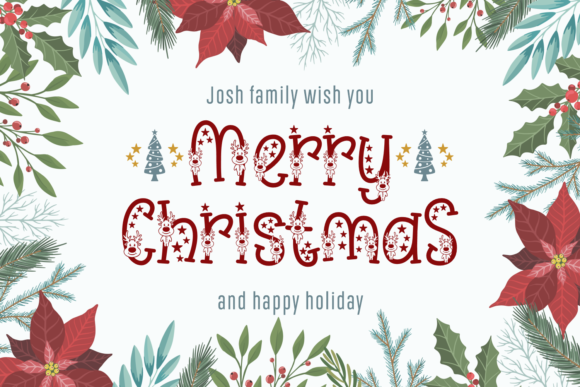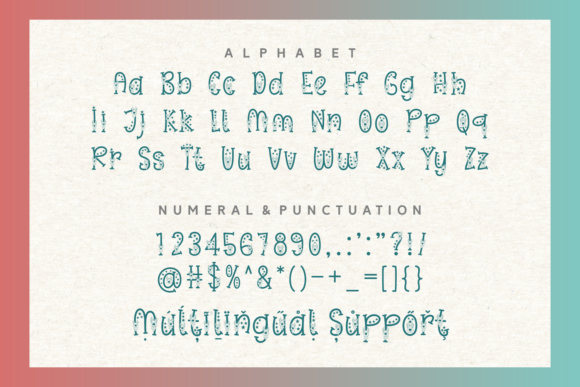
Introduction to Hello Noels Font
Have you ever found yourself brainstorming ideas for a creative project, only to be stuck on the perfect font to bring your vision to life? It’s a feeling many designers can relate to. But what if you stumbled upon a font that effortlessly captures the essence of festive cheer, making your design shine like a well-placed snowflake on a winter wonderland scene?
Meet the Hello Noels Font, a delightful decorative font that’s sure to become your go-to resource for any project that requires a touch of whimsy. Whether you’re working on a digital design, crafting a handmade card, or creating a presentation that screams joy, this high-quality font has the potential to elevate your work to new heights.
Key Features of Hello Noels Font
- Unique characteristics: a modern and elegant design, suitable for various applications, including logos, headings, and body text.
Honest Review: Hello Noels Font
As a designer, I’m always on the lookout for high-quality design resources to elevate my creative projects. I recently stumbled upon the Hello Noels Font, and I’m excited to share my thoughts on it.
What works well about the Hello Noels Font is its versatility and charm. It’s a beautiful, hand-drawn font that’s perfect for adding a personal touch to your designs. I particularly love the whimsical feel it brings to my projects.
- ✨ Beautiful, hand-drawn design that’s perfect for creative projects
- ✨ Versatile font that works well for both digital and print designs
One limitation I’ve noticed is that the font can be a bit difficult to read in certain font sizes. I’ve found that it works best when used at larger sizes, but it can be challenging to read at smaller sizes.
Overall, I’m really impressed with the Hello Noels Font. It’s a great addition to my design resource library, and I’m excited to see how it will help elevate my creative projects.
Hello Noels Font
Introduction to Hello Noels Font
Tips for Getting the Most Out of Hello Noels Font
To get the most out of Hello Noels Font, be sure to use it on a transparent background to achieve a seamless design. You can also experiment with different font sizes and styles to create a unique look. Additionally, consider pairing Hello Noels Font with other design elements, such as graphics and textures, to add depth and interest to your design.
Common Use Cases for Hello Noels Font
Hello Noels Font is perfect for a variety of creative projects, including wedding invitations, business cards, and social media graphics. Its elegant design makes it ideal for formal events and professional branding. With its transparent background and high-quality design, Hello Noels Font is a versatile and effective design resource that is sure to elevate your projects.